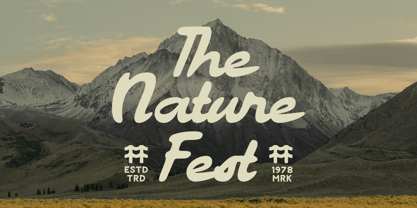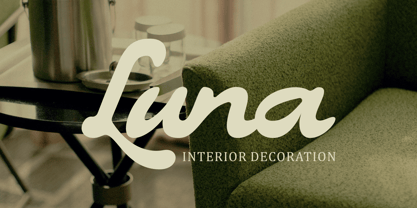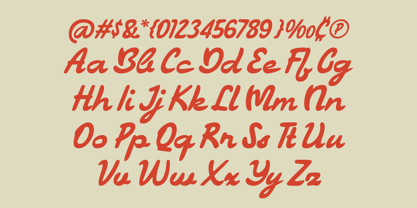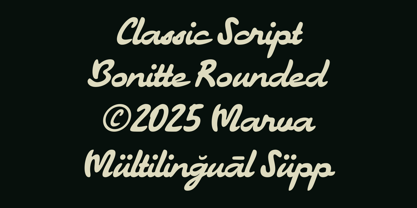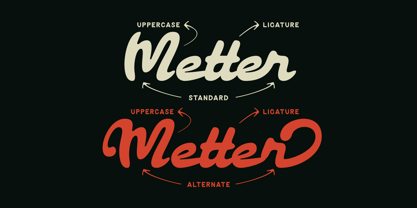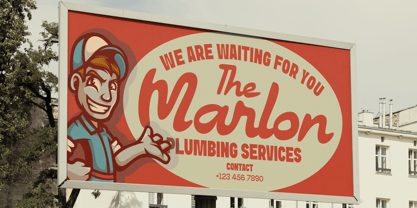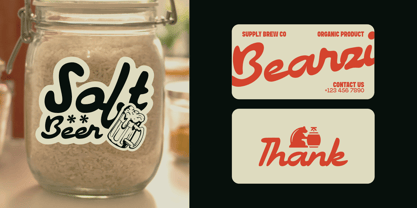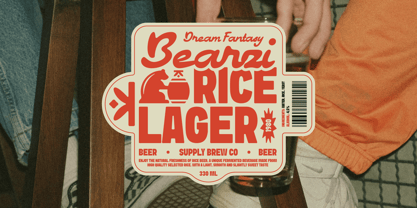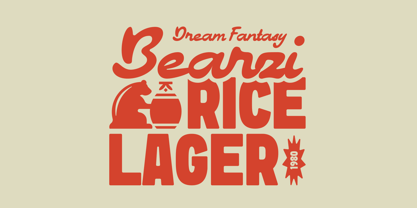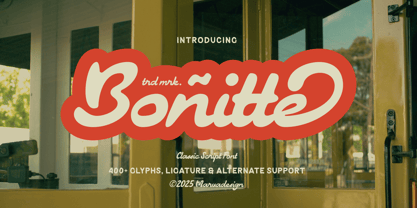
Bonitte
by Marvadesign
The Bonitte Font Family was designed by Febrie Setiawan and published by Marvadesign. Bonitte contains 1 styles. More about this family
Bonitte is a charming and playful classic script font with a smooth rounded style that evokes a nostalgic and friendly vibe. Designed with over 400 glyphs, it includes ligatures and alternate characters, offering excellent flexibility for various design applications. Its handwritten feel, clean curves, and multilingual support make it perfect for branding, packaging, logos, or vintage-inspired signage. Created by Marvadesign in 2025, Bonitte Rounded combines elegance and approachability in one beautiful script typeface.
Designers: Febrie Setiawan
Foundry: Marvadesign